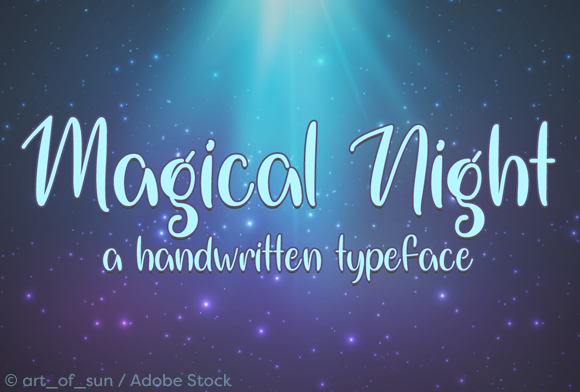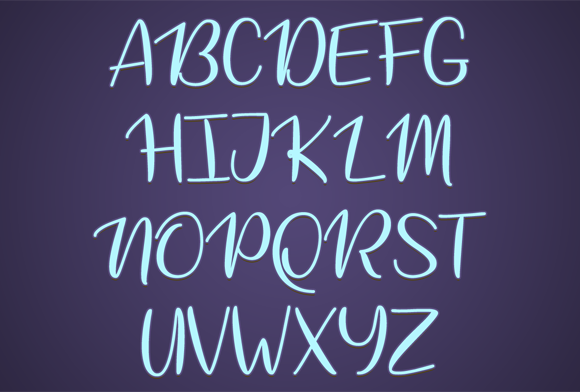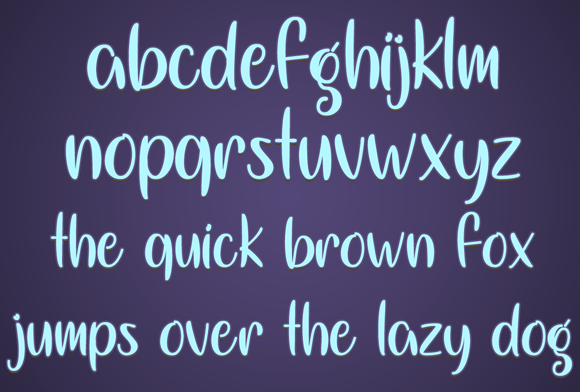
HomeScript FontsMagical Night Font Script Fonts Magical Night Font FacebookXPinterestWhatsApp Magical Night Font Poster 2 Magical Night Font Poster 3 About Magical Night Font Magical Night is a stylish, handlettered typeface that will add whimsy and charm to your projects! DOWNLOAD ON CREATIVE FABRICAThis font is sold and delivered by Creative Fabrica. Font Canyon may earn a commission if you buy through this link. People also explored Special Day Font Homeschool Font Shellty Monogram Font Wind Font Sarmista Font Bellimbing Font Schooltime Font Love Surely Font Farmer Font 277 0 TagsMagical Night Font Previous articleRadical Outcast FontNext articleSilent Font LEAVE A REPLY Cancel reply Comment: Please enter your comment! Name:* Please enter your name here Email:* You have entered an incorrect email address! Please enter your email address here Website: Save my name, email, and website in this browser for the next time I comment. Personal Use Free Built Tilting Personal Use Free Read more about this font Wildwest Personal Use Free Read more about this font Tomatoes Personal Use Free Read more about this font Equestrain Personal Use Free Read more about this font BLOG 5 Fonts That Will Dominate Design Trends in 2026 5 Fonts for 2026 That Will Dominate Design Trends Typography plays a critical role in visual communication, and as we look ahead to 2026, it’s... Modern Sans-Serif Fonts That Brands Love in 2025 Top 7 Google Fonts Alternatives for Faster and Privacy-Friendly Web Design (2025) Free vs Paid Fonts: Why Investing in Premium Fonts Is Worth It